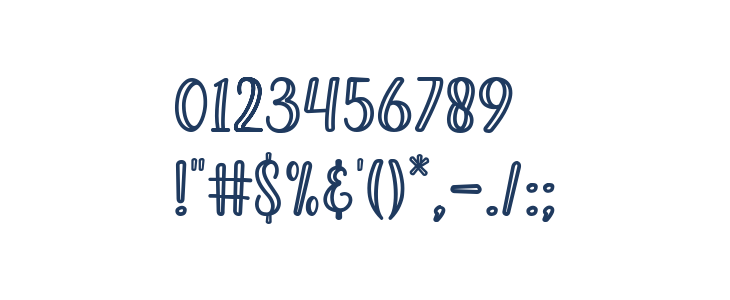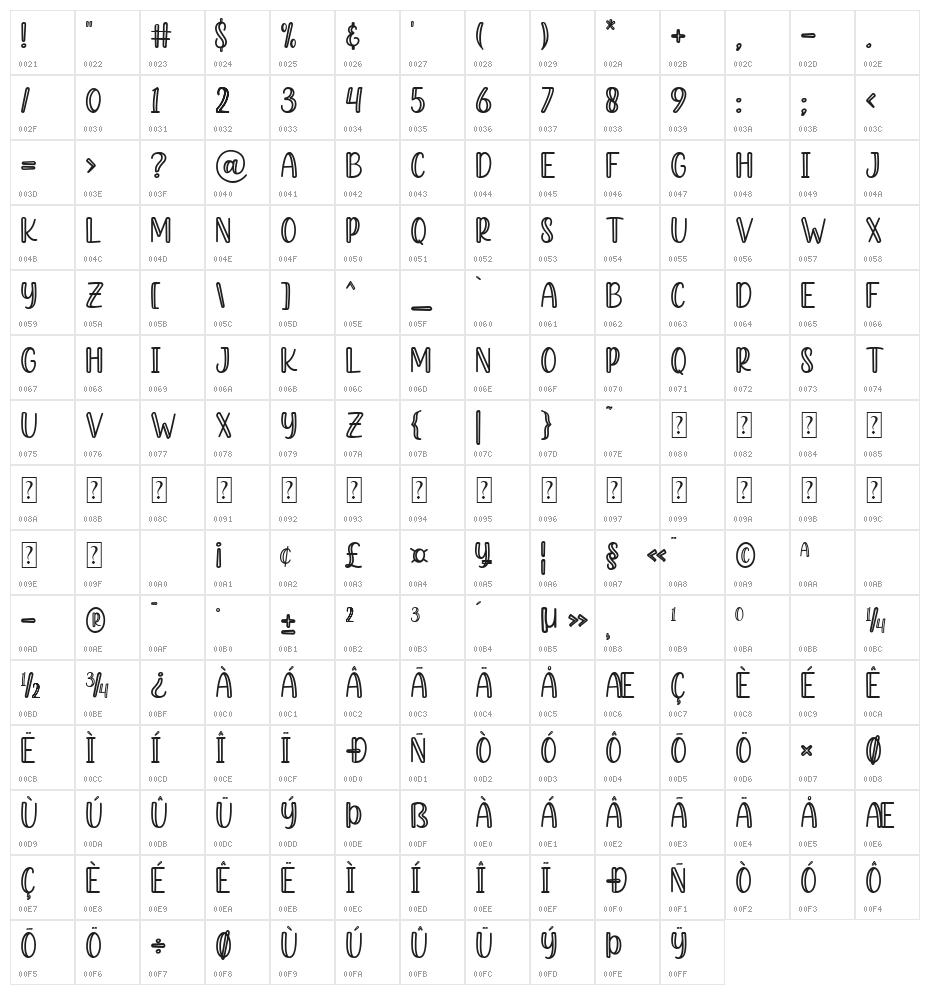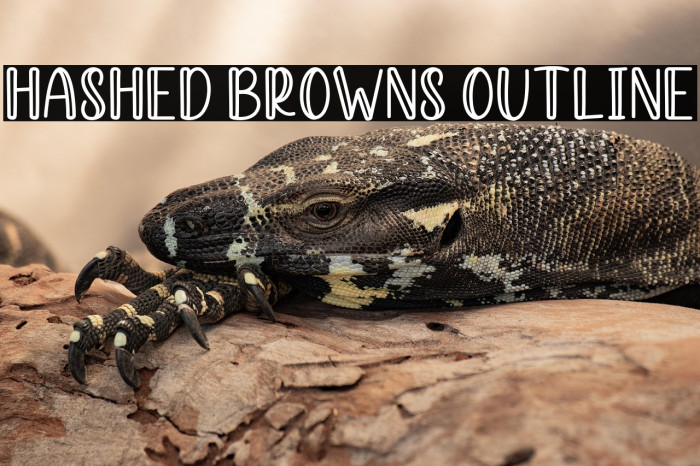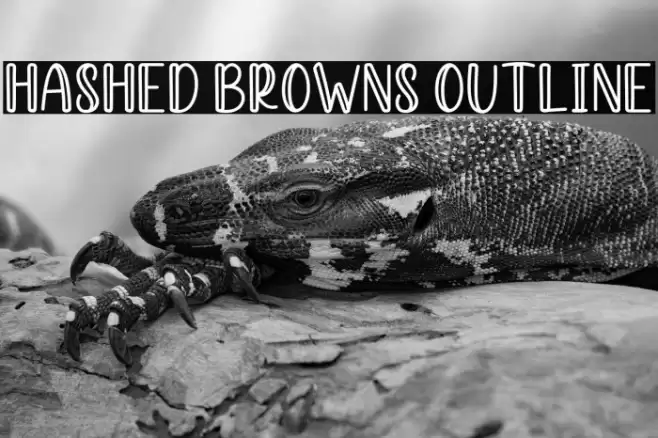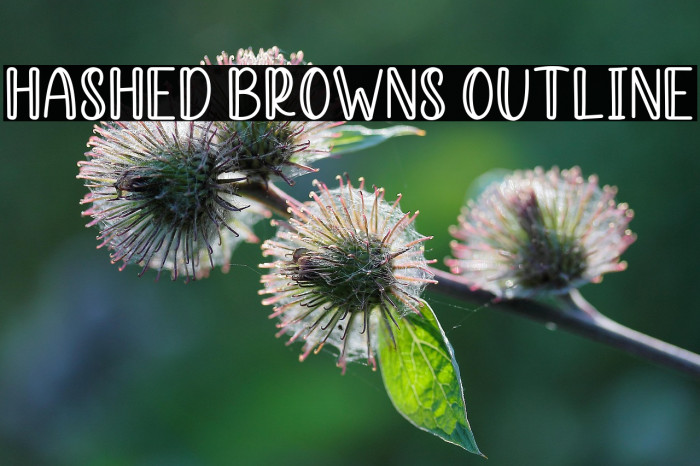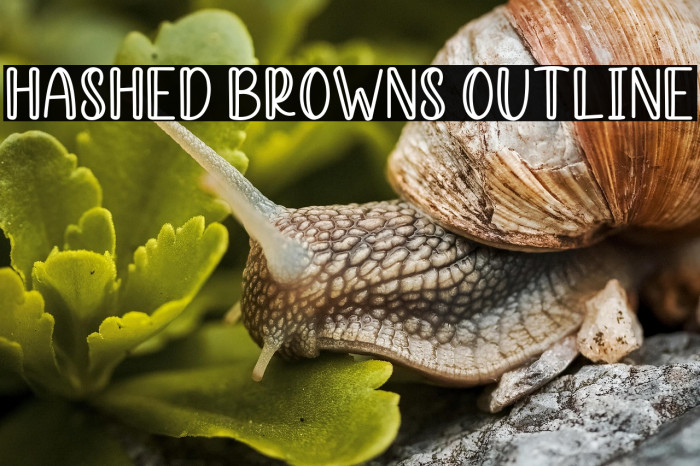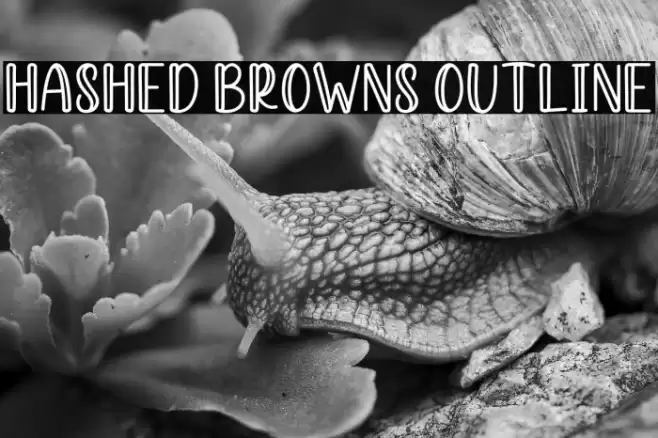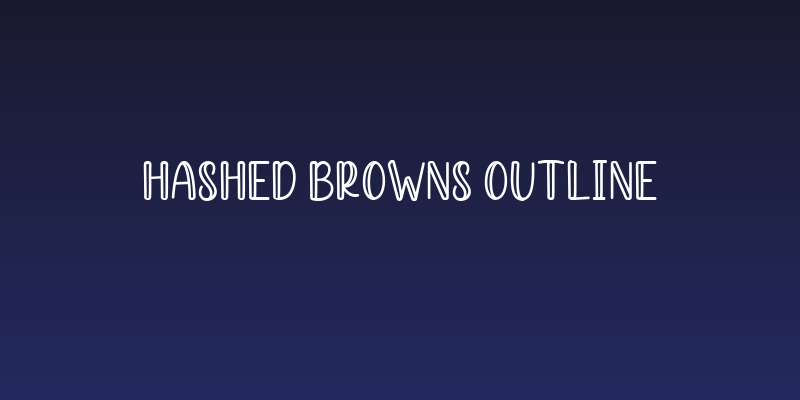
Hashed Browns Outline Font
Hashed Browns Outline Description
This font features a playful and bold outline style, characterized by its thick, rounded strokes and a hand-drawn appearance. The uppercase and lowercase letters maintain a consistent width, creating a cohesive look. The numbers and special characters follow the same design principles, ensuring uniformity across all glyphs. Its whimsical nature makes it suitable for projects that require a fun and approachable aesthetic. The font's outline design adds a layer of depth, making it stand out in various applications. Its readability is enhanced by the clear separation between characters, despite the bold outlines.
| Proposed Projects | Ideal for children's books, playful branding, greeting cards, and casual event invitations. |